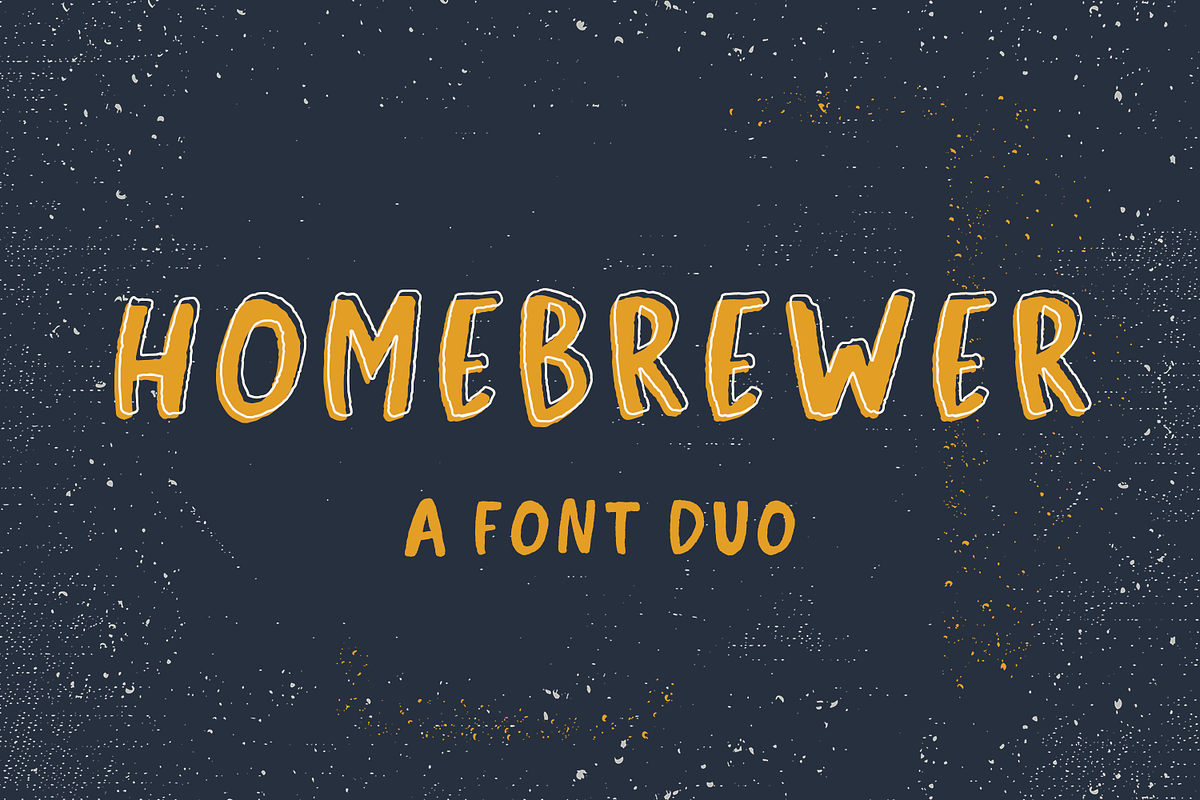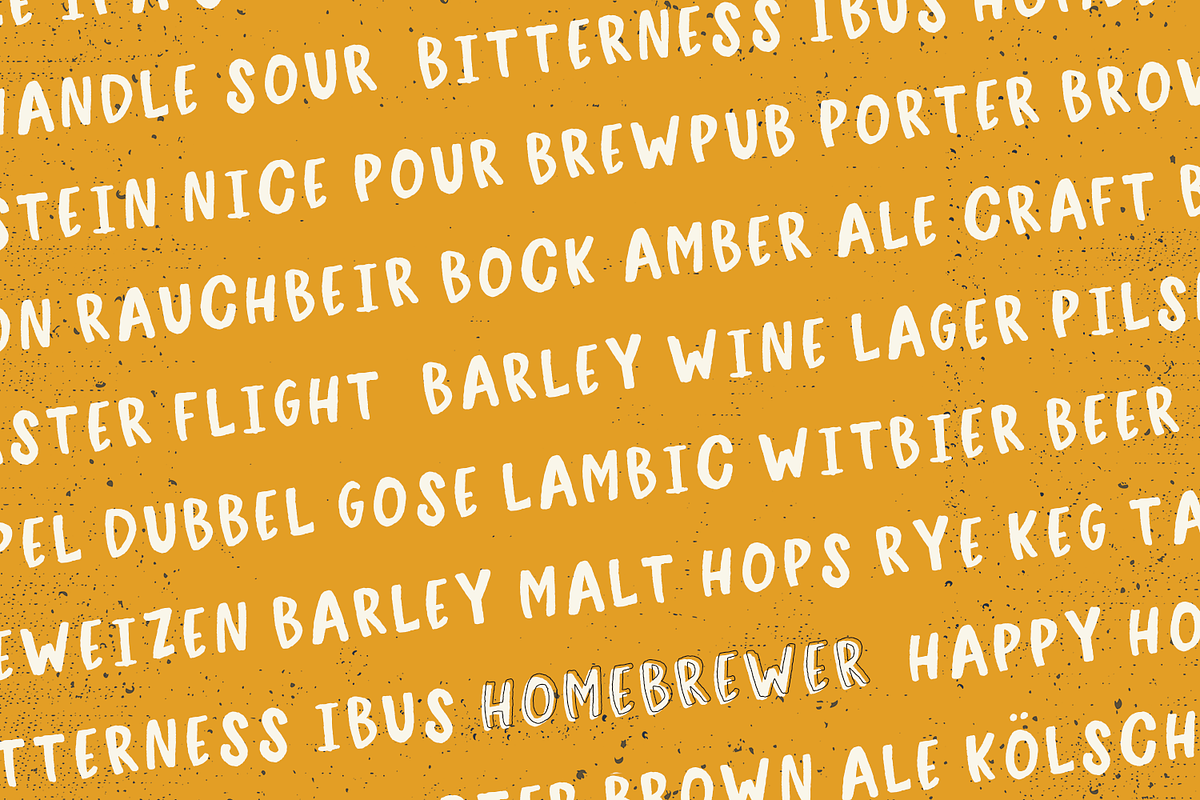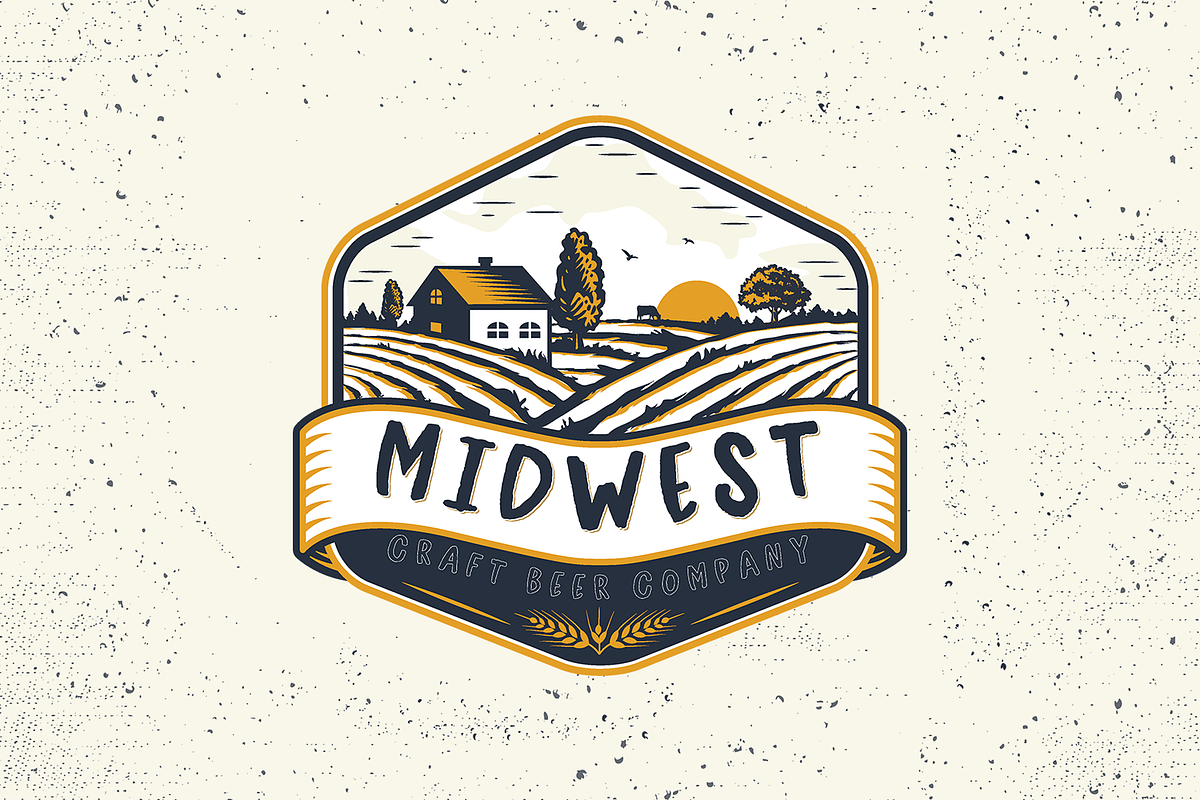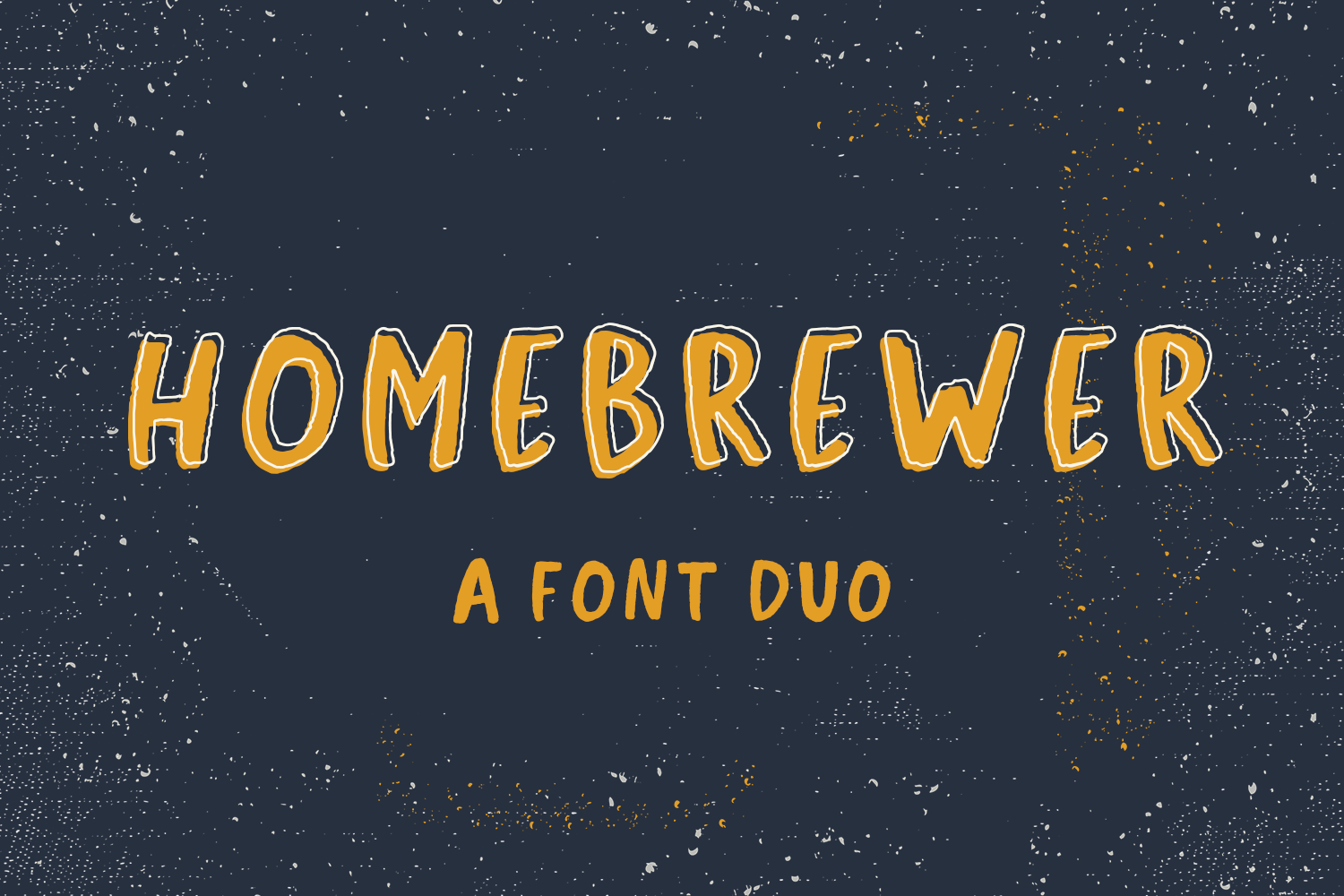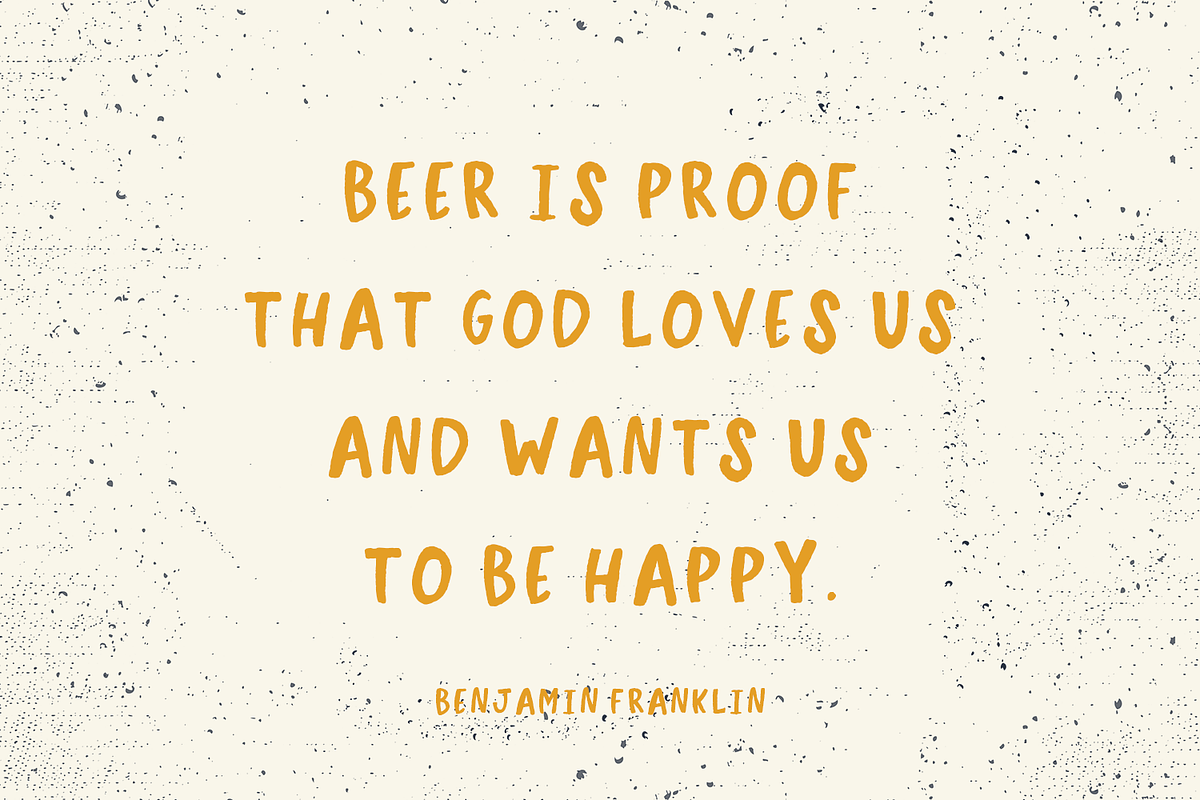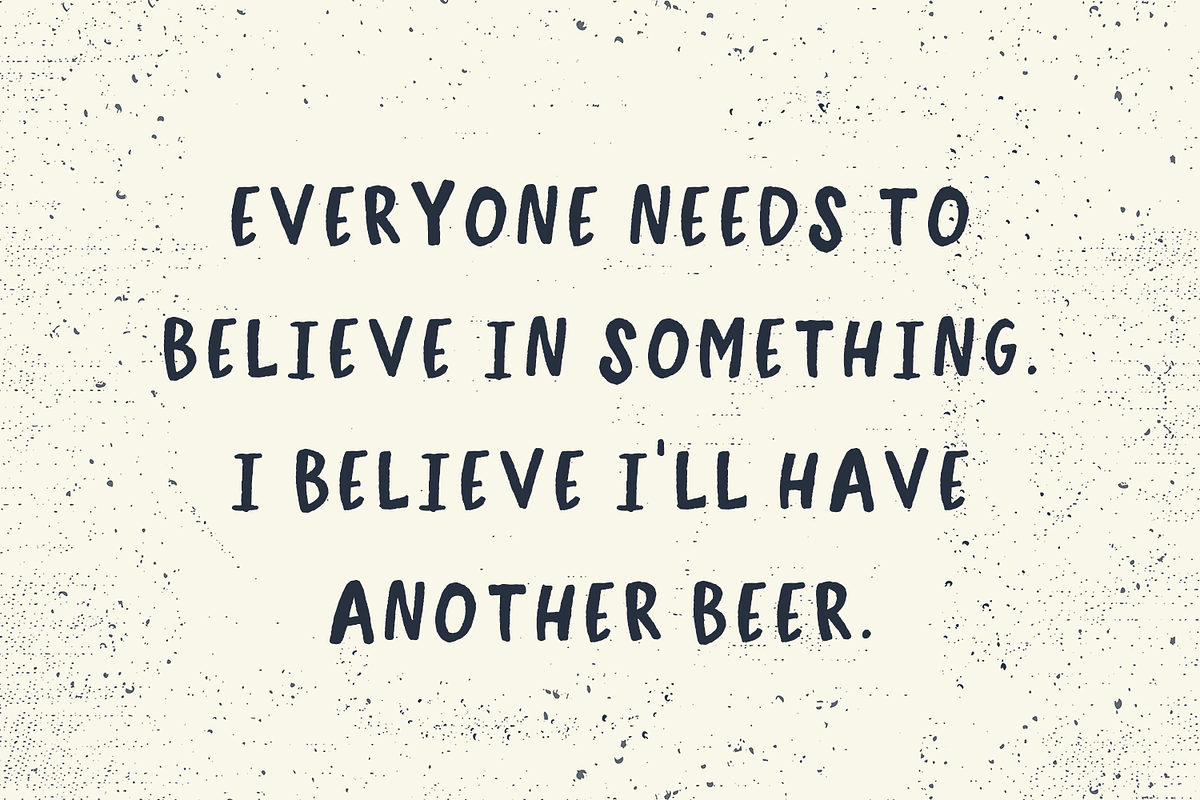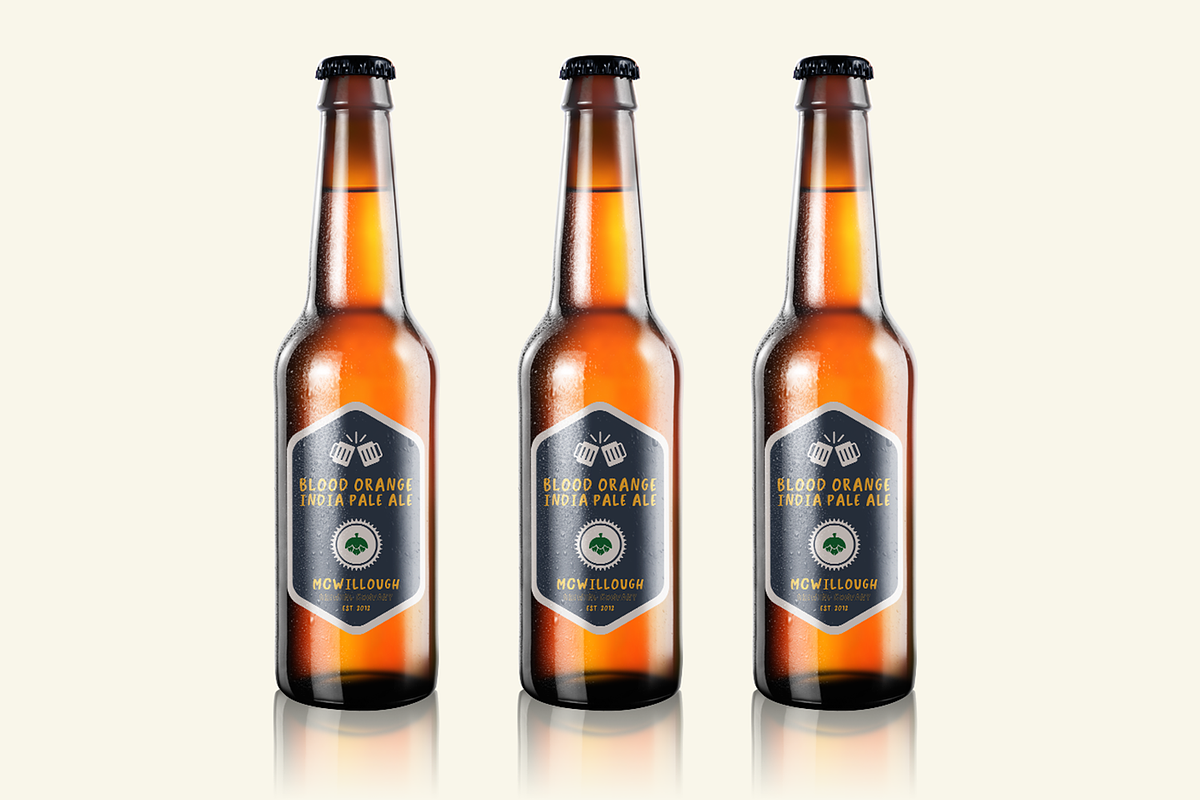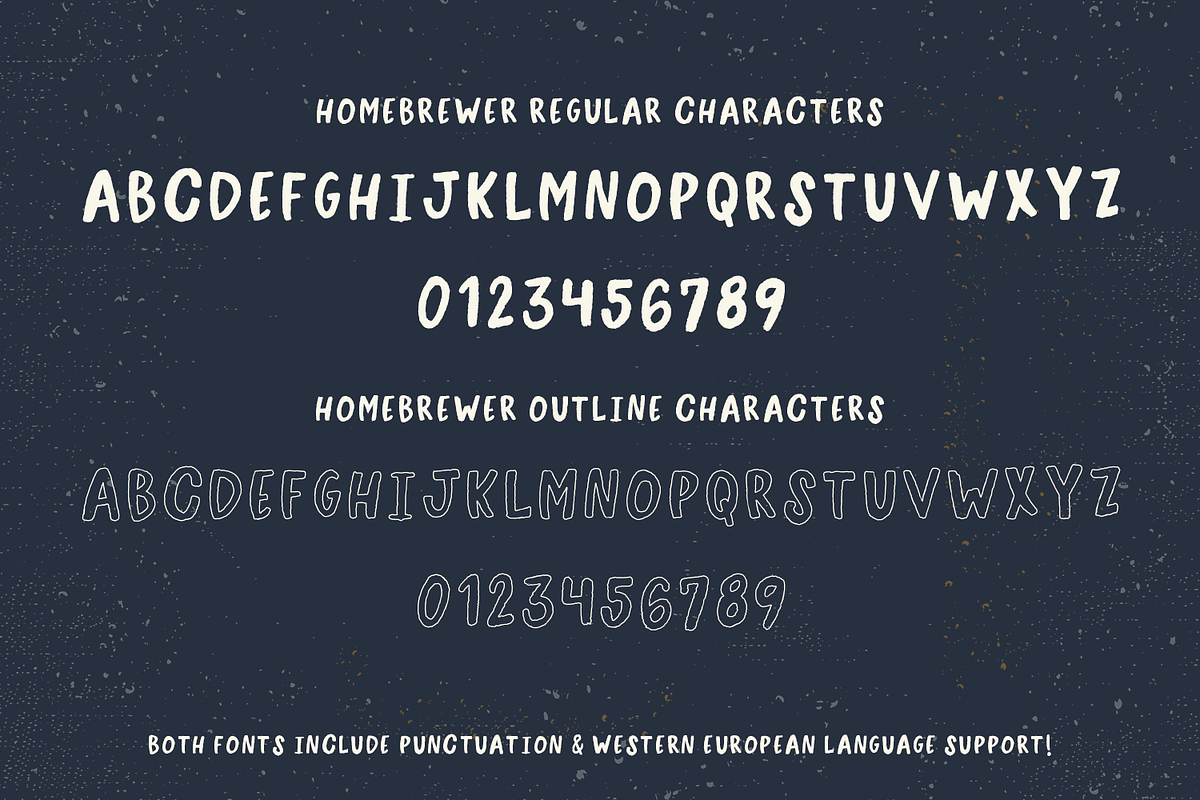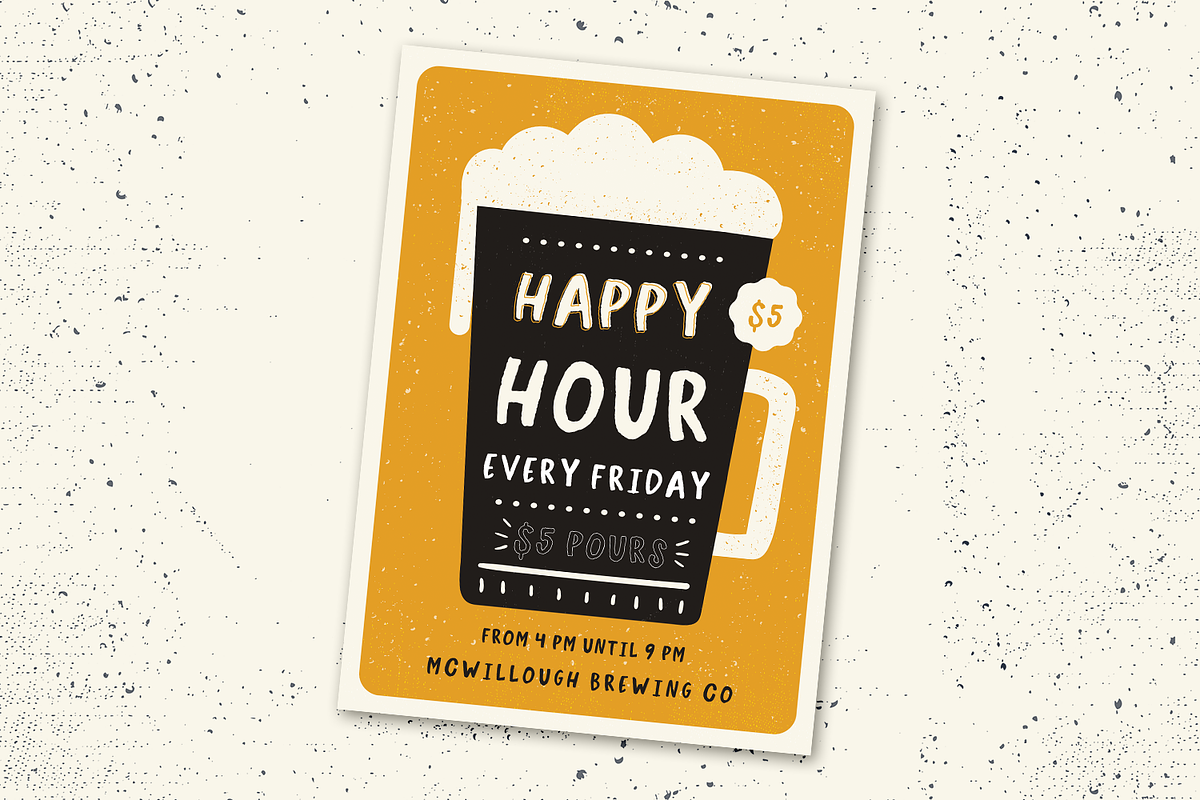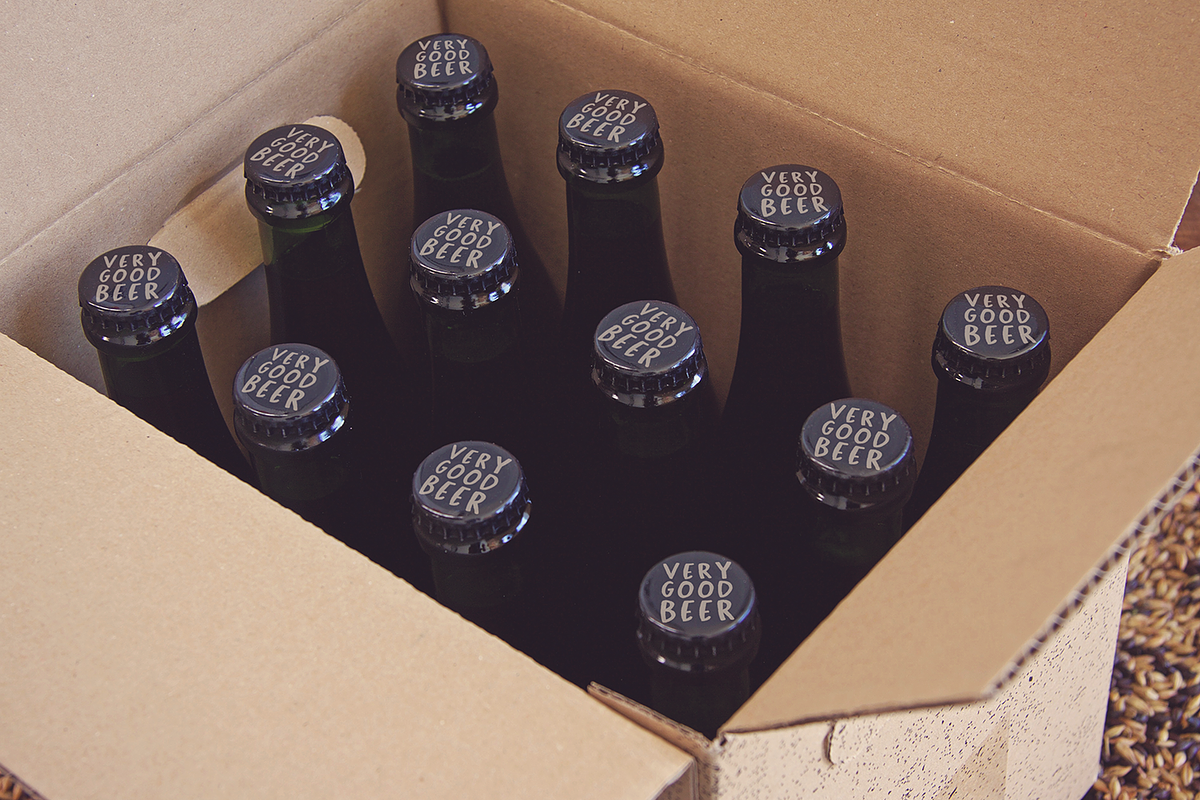
Homebrewer Font Duo
Homebrewer Sans is an excellent fit for:
- crafting projects that need a handlettered or masculine feel
- big, bold headings
- quote graphics
- and obviously, beer :)
Homebrewer Sans + Outline includes:
- full uppercase characters (all caps font)
- numbers + punctuation
- Western European Language Support